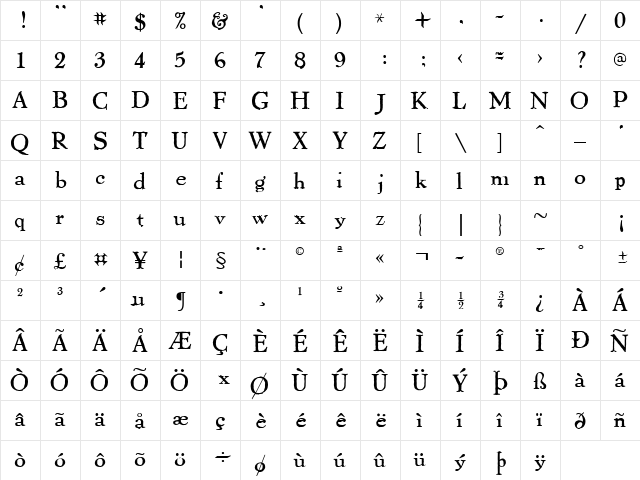
Thomas Paine Regular
Design Context for Thomas Paine Typeface
Thomas Paine takes a measured approach to typography — its balanced proportions and neutral character make it a reliable workhorse for both digital and print work.